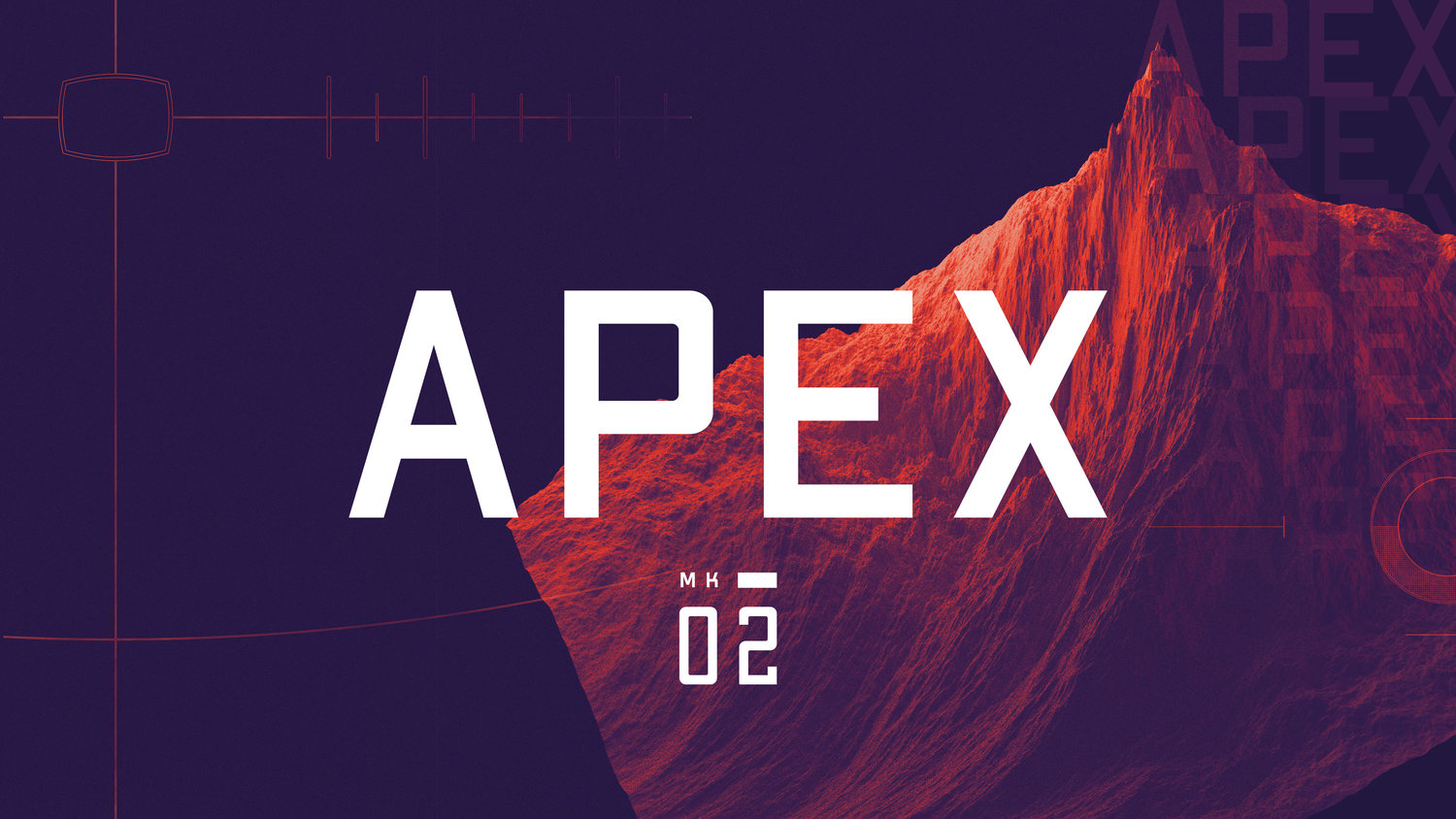
Apex Mk2 Font
Apex Mk2 Font is perfect for advanced technology branding, precision engineering logos, high-performance automotive graphics, sophisticated tech interfaces, innovative product launches, modern aerospace materials, cutting-edge scientific presentations, professional manufacturing branding, elite performance marketing, and next-level digital communications.
What makes Apex Mk2 Font so exciting is its refined technological precision that represents the evolution of advanced design thinking while maintaining superior functionality and professional excellence. This sophisticated typeface embodies technological maturity and engineering refinement, creating typography that communicates innovation, reliability, and peak performance standards.
The Apex Mk2 Font family includes light, regular, medium, bold, and black weights, complete with refined design features, precision styling options, and advanced engineering elements that provide designers with comprehensive tools for creating sophisticated and memorable typography that represents technological excellence.
Achieve technological excellence with Apex Mk2 Font Free Download, a sophisticatedly engineered typeface that brings refined technology aesthetics and precision engineering to advanced design projects. This exceptional font embodies the perfect fusion of technological sophistication and professional refinement, making it the ideal choice for brands that represent evolved technology and engineering excellence.
The precisely refined letterforms of Apex Mk2 Font showcase technological maturity with engineering character that creates instant recognition of advanced capability and professional excellence. Each character displays meticulous attention to maintaining the technological sophistication that defines refined innovation while ensuring superior readability and professional versatility. The font's evolved construction and precision spacing contribute to its sophisticated appearance and technological appeal.
Advanced technology brands and precision-focused organizations consistently choose Apex Mk2 Font for projects requiring sophisticated aesthetics and technological credibility. The comprehensive character set includes uppercase and lowercase letters, numerals, extensive punctuation, international accents, and precision elements that provide complete support for advanced technology branding applications and sophisticated design compositions.
The sophisticated versatility of Apex Mk2 Font ensures exceptional performance across both traditional print and modern digital platforms. Whether developing advanced brand identities, creating precision marketing campaigns, or designing sophisticated technology materials, this remarkable typeface delivers consistent excellence that resonates with audiences seeking technological sophistication and engineering refinement.
Transform your most sophisticated projects with Apex Mk2 Font Free Download. This extraordinary typeface brings technological refinement and precision excellence to typography, making it the essential choice for designers who create experiences that define advanced technology standards and sophisticated engineering innovation in contemporary design.